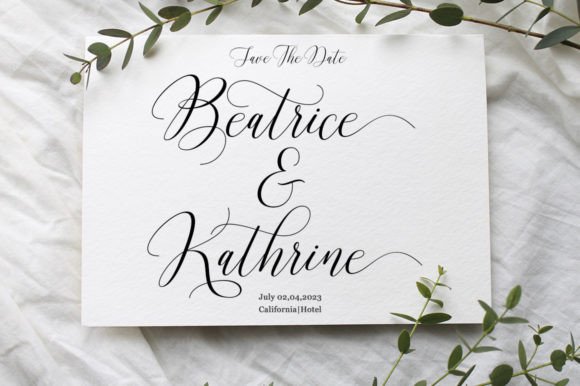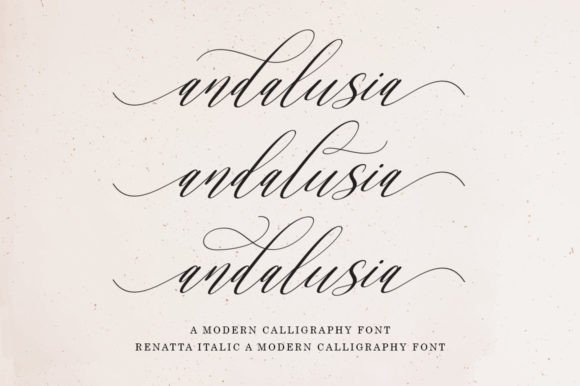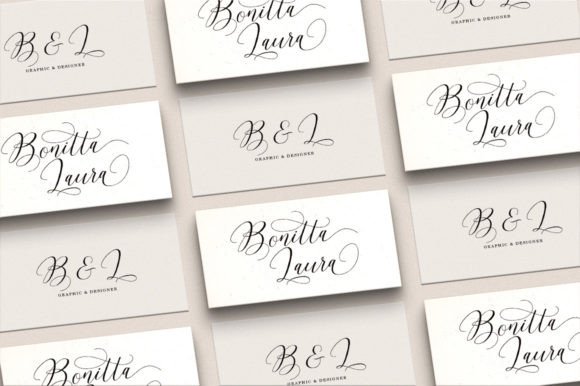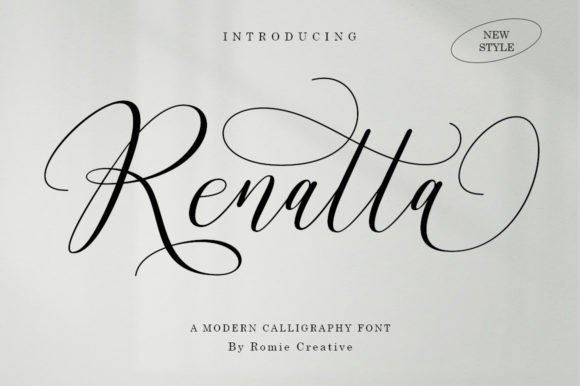
Introduction to Renatta Font
Renatta is a deluxe, romantic, and stylish font that exudes sophistication and class.
With its elegant curves, sweeping lines, and graceful flourishes, this font is perfect for adding a touch of romance to wedding invitations, elegant branding, or any design project that calls for a touch of refined beauty This font is PUA encoded which means you can access all glyphs and swashes effortlessly.